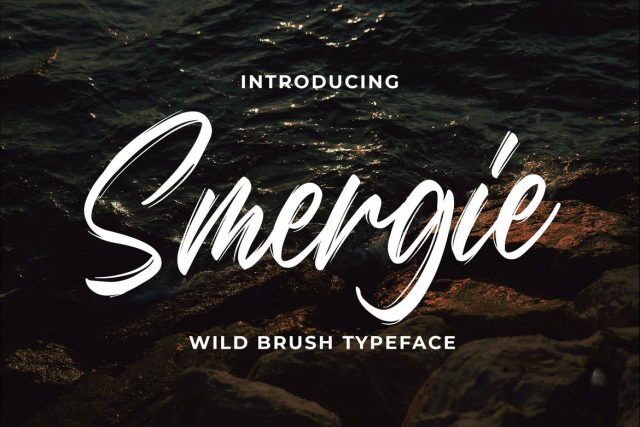
Introducing of our new product the name Smergie Wild Brush Typeface. Smergie made with Brush pen into digital this font is a fun theme very good for signature, poster, branding, logotype etc
MULTILINGUAL ACCENT :
ŽžŠŒšŸÀÁÂÃÄÅÆÇÈÉÊËÌÍÎÏÐŁÑÒÓÔÕÖØÙÚÛÜÝßàáâãäåæçèéêëìíîïłñòóôõöøùúûüýÿ
FEATURES :
Lowercase
Number
Punctuation
Multilingual
PUA Encode
Opentype